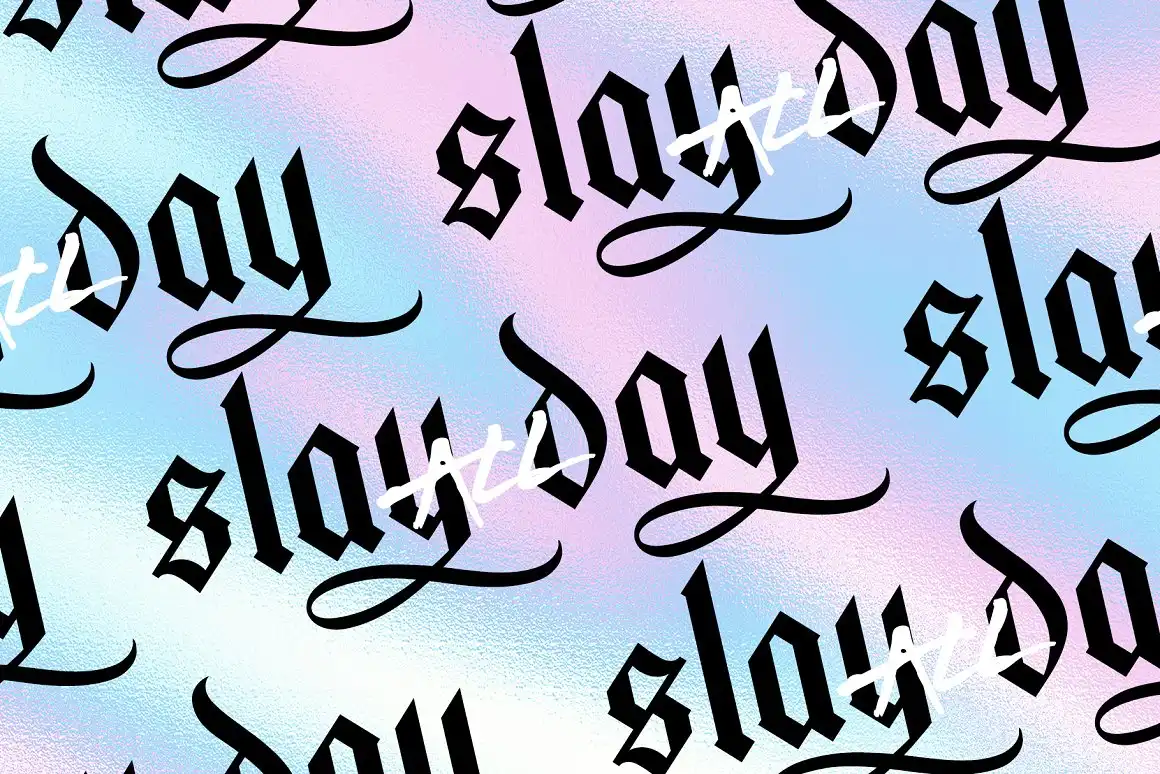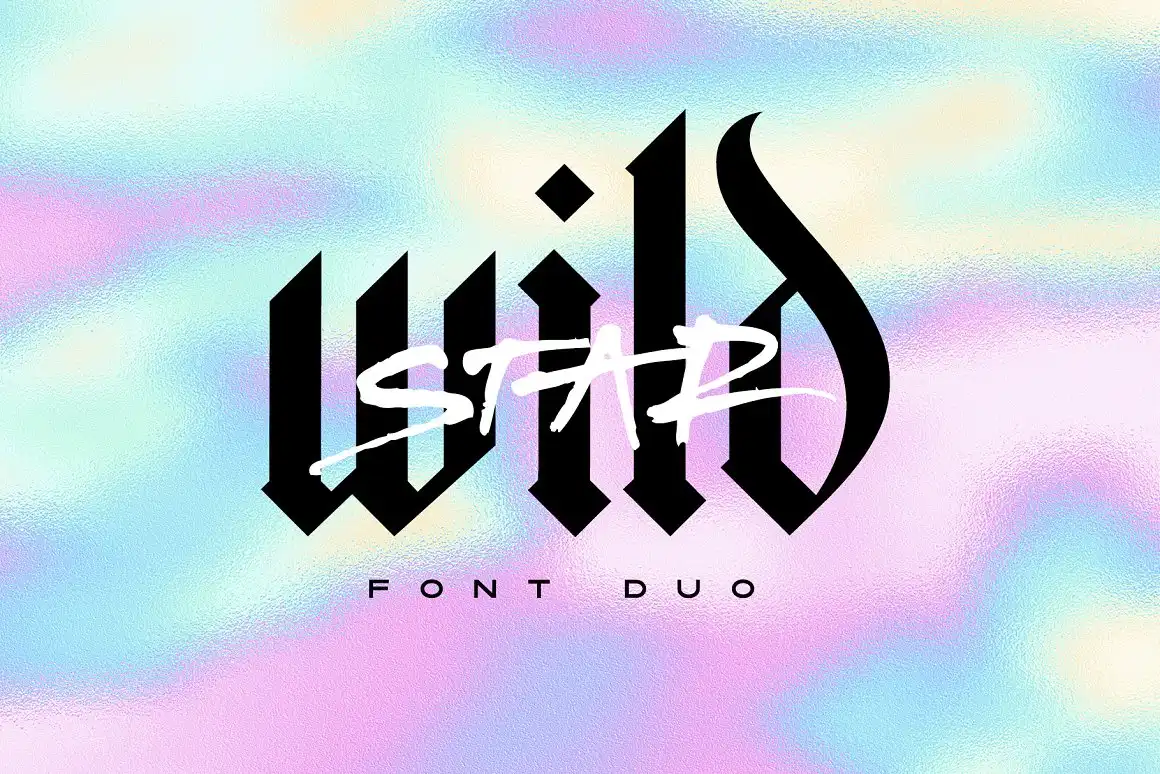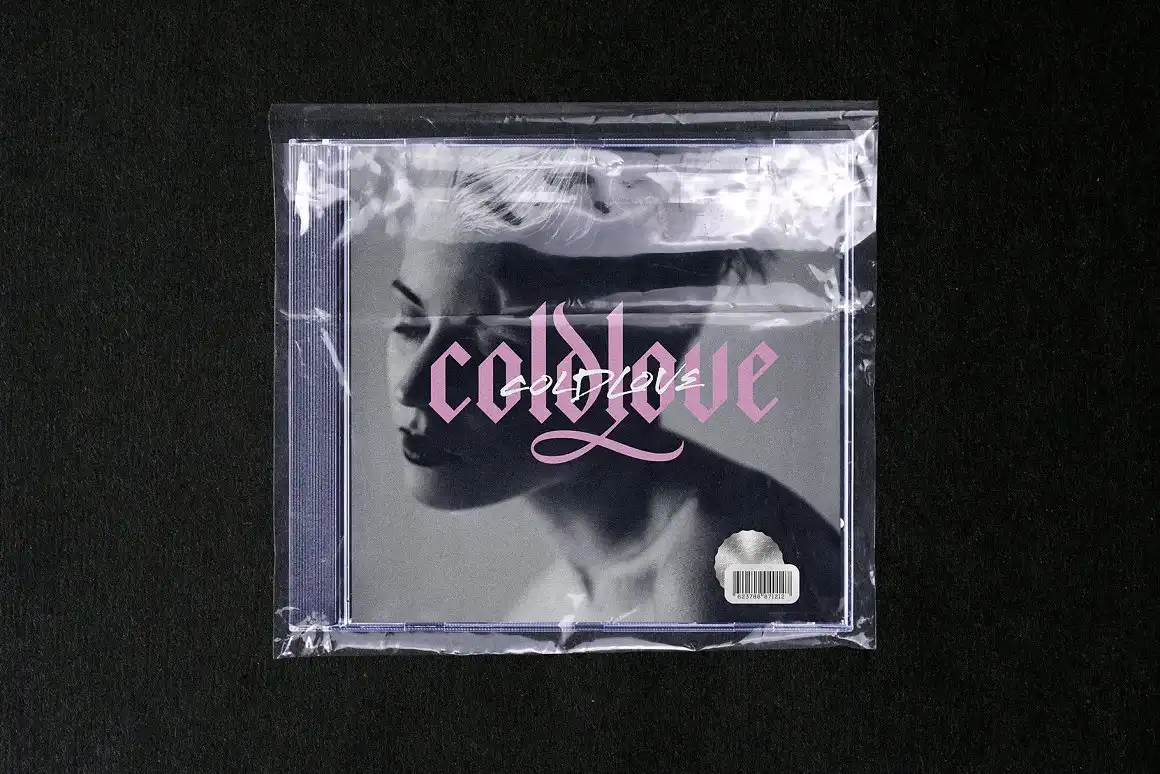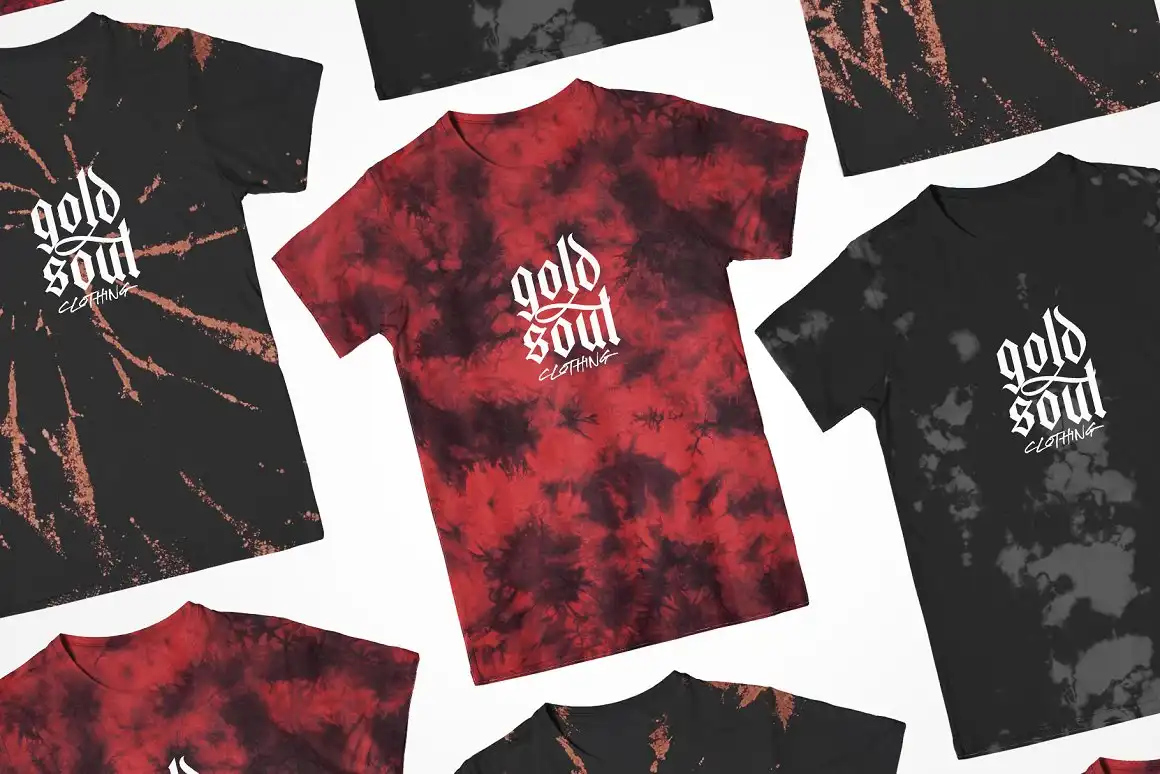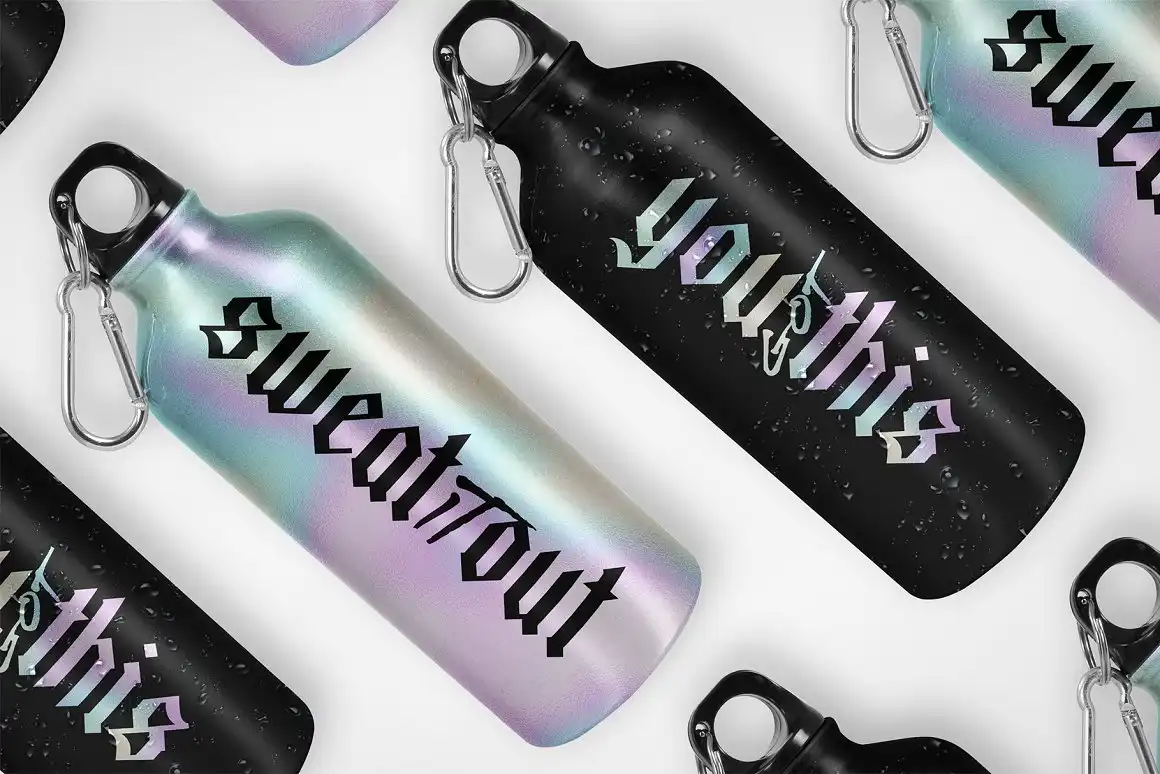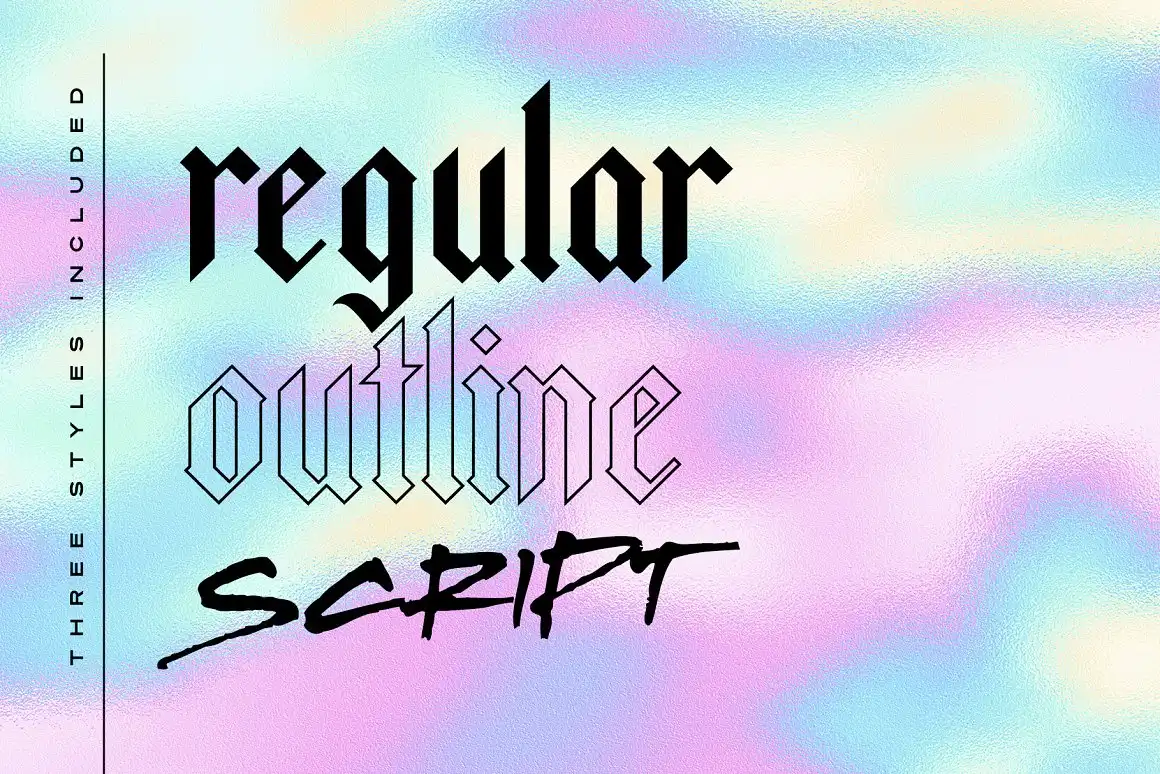
Looking for a bold and expressive typeface? The wild star font duo is here to brighten up your designs with its unique flair! This digital download offers instant access to three stunning font files that will unleash your creativity in no time. ✨
The wild star font duo combines a striking modern blackletter font with a playful script font, making it the perfect choice for a variety of projects. Whether you’re crafting merchandise, designing album artwork, or creating eye-catching logos, this duo is designed to make your message stand out!
- Wild Star Font: A modern blackletter font with upper and lowercase characters, numerals, and punctuation. Perfect for bold statements! 🎨
- Wild Star Outline Font: Add an outline effect to your designs for an extra layer of depth and creativity!
- Wild Star Script Font: A rough, hand-scratched font that features two sets of uppercase characters, numerals, and punctuation for versatile styling.
- New Update: Now includes uppercase characters, 11 new ‘flourished’ lowercase characters, and 8 fun icons—totaling 45 new glyphs! 🎉
- Anyone wanting to add a touch of modern gothic flair to their work!